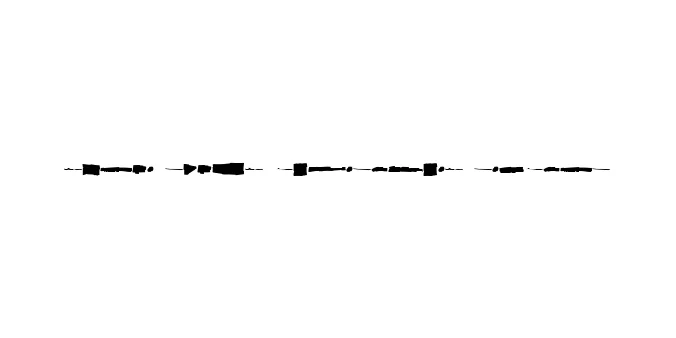
Space Rocks Underlines Regular
Designed by Darrell Flood
Space Rocks Underlines Regular is a high-energy display typeface designed to capture the raw, gritty essence of cosmic adventure and alternative rock aesthetics. Characterized by its bold, weathered letterforms and integrated decorative underlines, this font provides a sense of motion and structural impact. It is heavily influenced by vintage sci-fi comics and retro punk poster art, making it an ideal choice for designers looking to infuse their work with a rebellious and adventurous spirit.
The unique Underlines variant ensures that every word feels anchored and significant, reducing the need for additional graphic elements in layout designs. Each character features intentional distressing and irregular edges, which adds a tactile, handcrafted feel to digital projects. Whether utilized for high-stakes gaming titles or loud, expressive branding, this typeface stands out as a versatile tool for high-impact visual communication.
Space Rocks Underlines Regular Best Uses
Excellent for music festival flyers and cinematic event promotions.
Perfect for streetwear logos and graphic t-shirt designs.
Ideal for title screens and HUD elements in action-themed games.
Highly effective for bold YouTube thumbnails and Instagram headlines.